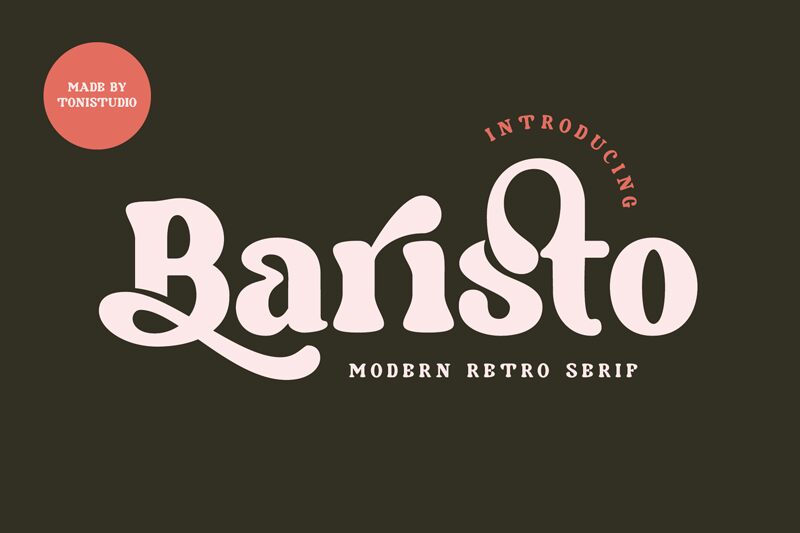
Baristo
Baristo, crafted by ToniStudio, is a retro display font that boasts bold weight and vintage charm. Perfect for projects requiring a touch of nostalgia, Baristo adds character to posters, packaging designs, logos, and more. The tall letterforms lend themselves well to headlines and titles, while the thick strokes make for easy readability from afar. Its unique aesthetic makes it ideal for branding campaigns or revamping outdated visuals. Bring your designs back in time with Baristo's retro flair and bold personality – guaranteed to grab attention and leave a lasting impression.